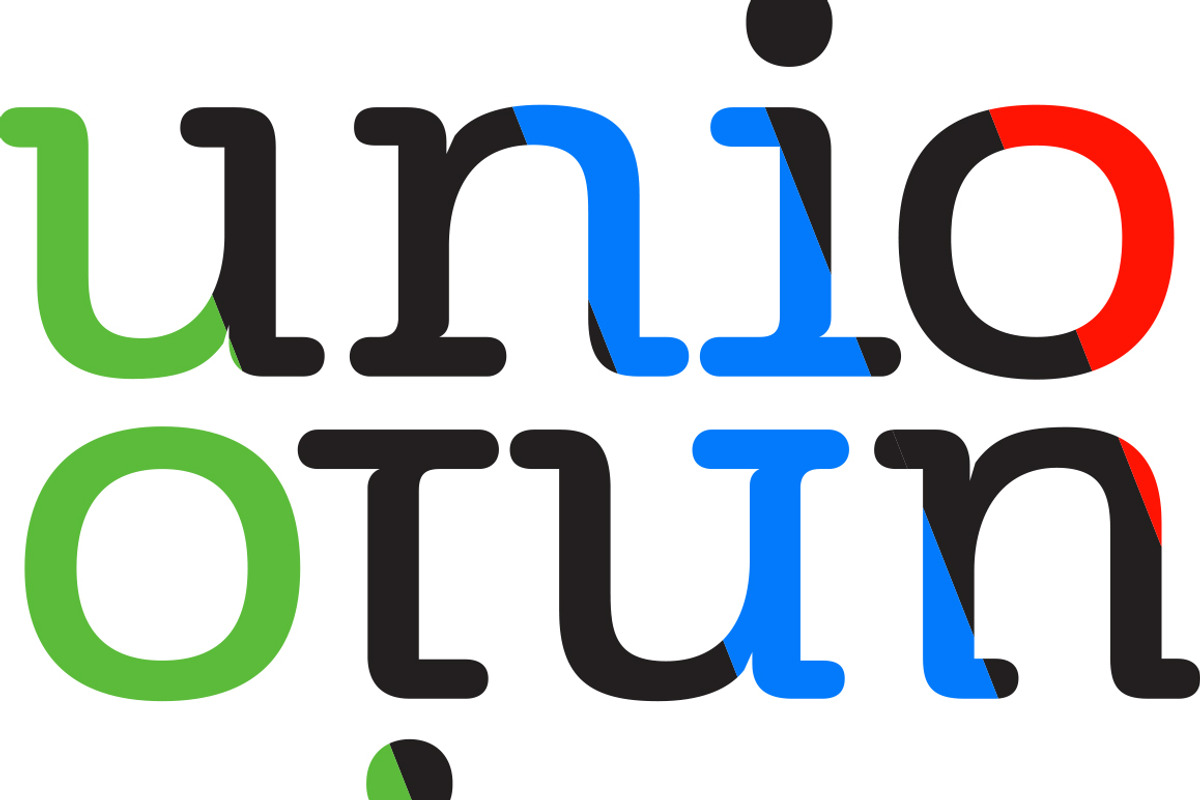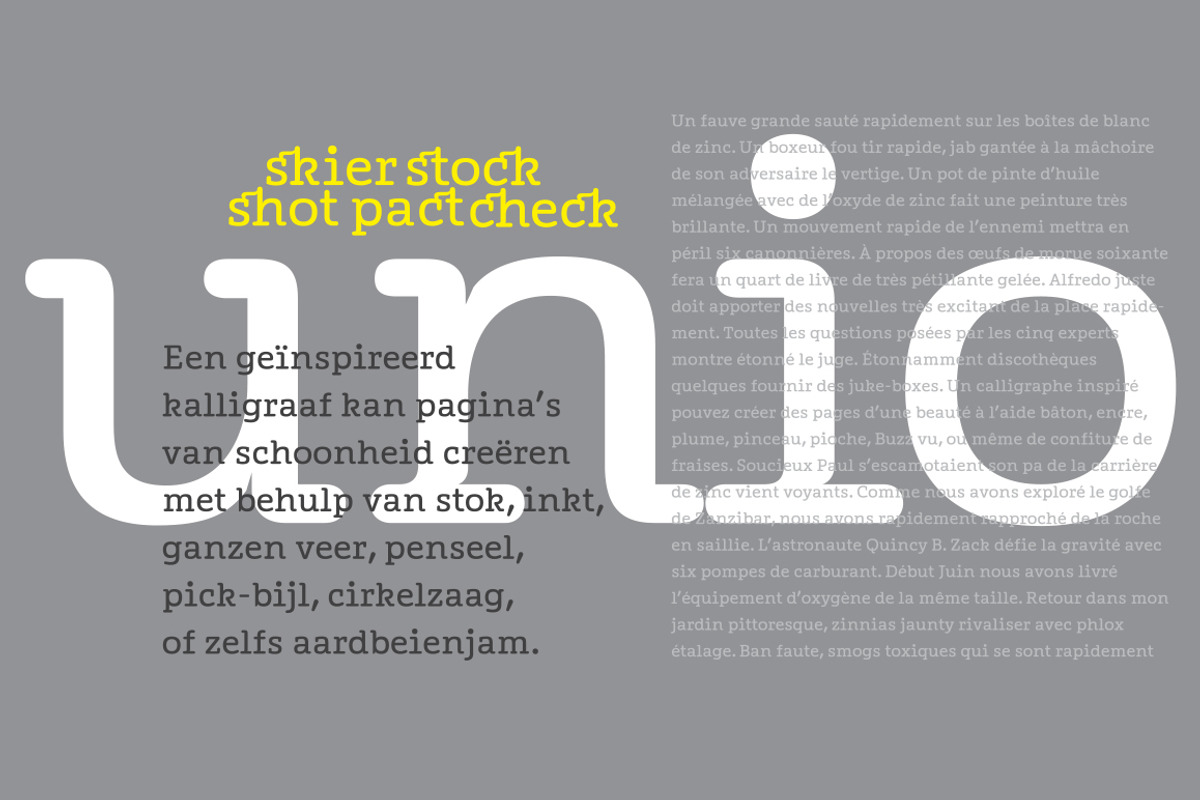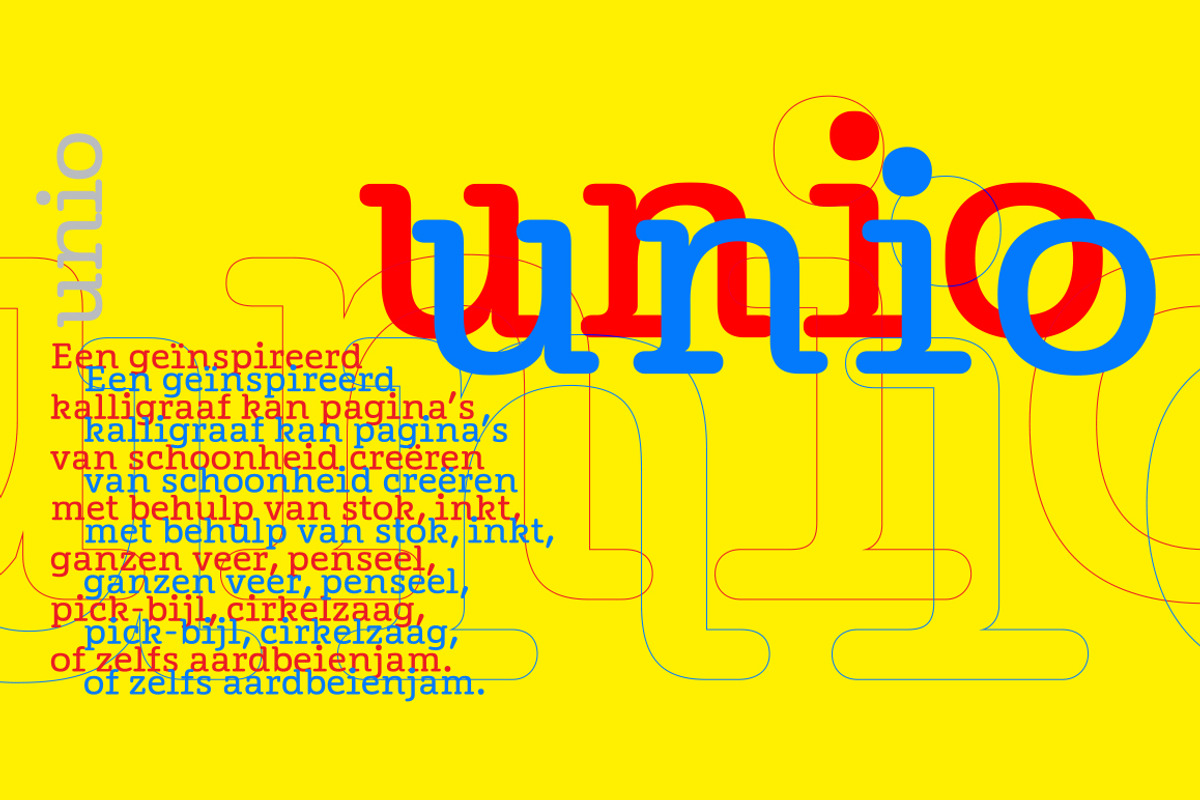
Unio Font - opentype
Unio Font - opentype by Wilton Foundry is a font selected for branding, posters, packaging, typography.
- Several ligatures are also included.
Why Unio Font - opentype is worth a look
Unio Font - opentype by Wilton Foundry fits naturally into Branding, posters, packaging, typography.